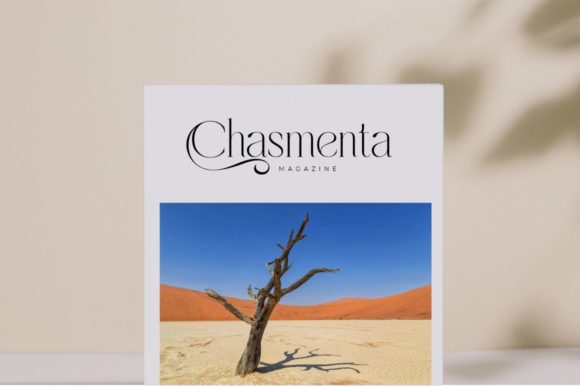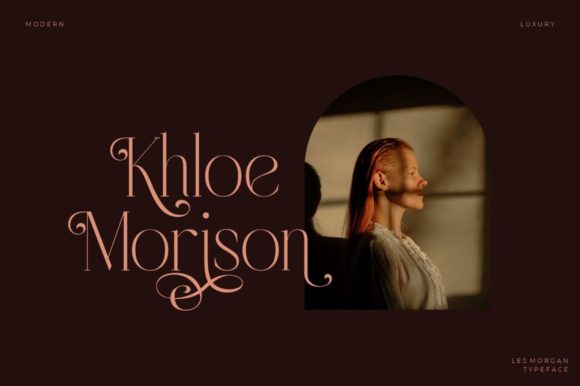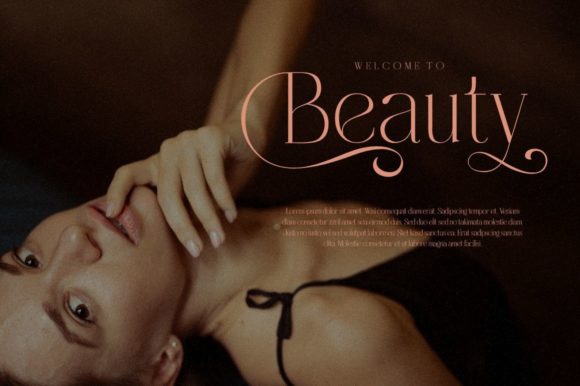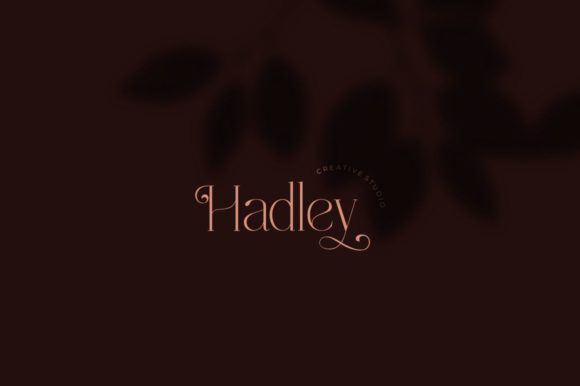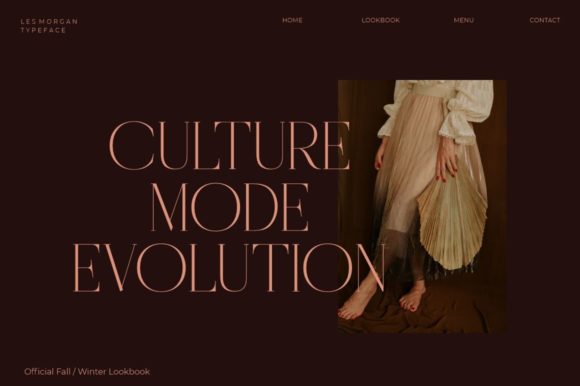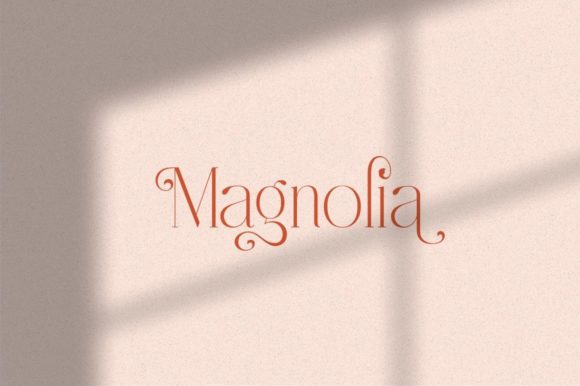
Discover the Elegance of Des Morgan Font: A Delicate Serif Font for Your Creative Projects
Are you a designer or crafter looking for a font that can add a touch of elegance and sophistication to your projects? Look no further than Des Morgan Font, a delicate and skinny lettered serif font that is sure to impress. With its lovely and distinct vibe, this font is perfect for a wide range of creative projects, from digital designs to craft projects.
What is Des Morgan Font?
Des Morgan Font is a beautifully crafted serif font that is characterized by its delicate and skinny lettering. The font is designed to provide a touch of elegance and sophistication to any project, making it perfect for designers and crafters who want to create something truly special. Whether you’re working on a digital design project or a craft project, Des Morgan Font is sure to add a touch of class and refinement.
Key Features of Des Morgan Font
So, what makes Des Morgan Font so special? Here are just a few of the key features that set it apart:
- Delicate and skinny lettering: Des Morgan Font features delicate and skinny lettering that is sure to add a touch of elegance to any project.
- PUA encoded: This font is PUA encoded, which means that you can access all of the glyphs and swashes with ease.
- Lovely and distinct vibe: Des Morgan Font has a lovely and distinct vibe that is sure to make your projects stand out.
- Perfect for a wide range of projects: Whether you’re working on a digital design project or a craft project, Des Morgan Font is perfect for a wide range of creative projects.
Why Choose Des Morgan Font?
So, why should you choose Des Morgan Font for your next project? Here are just a few reasons:
- Unique and elegant design: Des Morgan Font features a unique and elegant design that is sure to add a touch of sophistication to any project.
- Easy to use: With its PUA encoding, Des Morgan Font is easy to use and allows you to access all of the glyphs and swashes with ease.
- Versatile: Des Morgan Font is perfect for a wide range of creative projects, from digital designs to craft projects.
- High-quality: Des Morgan Font is a high-quality font that is designed to provide a professional finish to any project.
Project Ideas for Des Morgan Font
Des Morgan Font is perfect for a wide range of creative projects. Here are just a few ideas to get you started:
- Digital designs: Use Des Morgan Font to add a touch of elegance to your digital designs, such as brochures, flyers, and posters.
- Craft projects: Des Morgan Font is perfect for craft projects, such as card making, scrapbooking, and journaling.
- Sign making: Use Des Morgan Font to create beautiful signs for your home or business.
- Stationery: Des Morgan Font is perfect for creating elegant stationery, such as letterheads, envelopes, and business cards.
In conclusion, Des Morgan Font is a beautiful and elegant serif font that is perfect for designers and crafters who want to add a touch of sophistication to their projects. With its delicate and skinny lettering, PUA encoding, and lovely and distinct vibe, this font is sure to impress. Whether you’re working on a digital design project or a craft project, Des Morgan Font is a great choice.
So why not give Des Morgan Font a try? With its ease of use, versatility, and high-quality design, it’s the perfect font for any creative project.